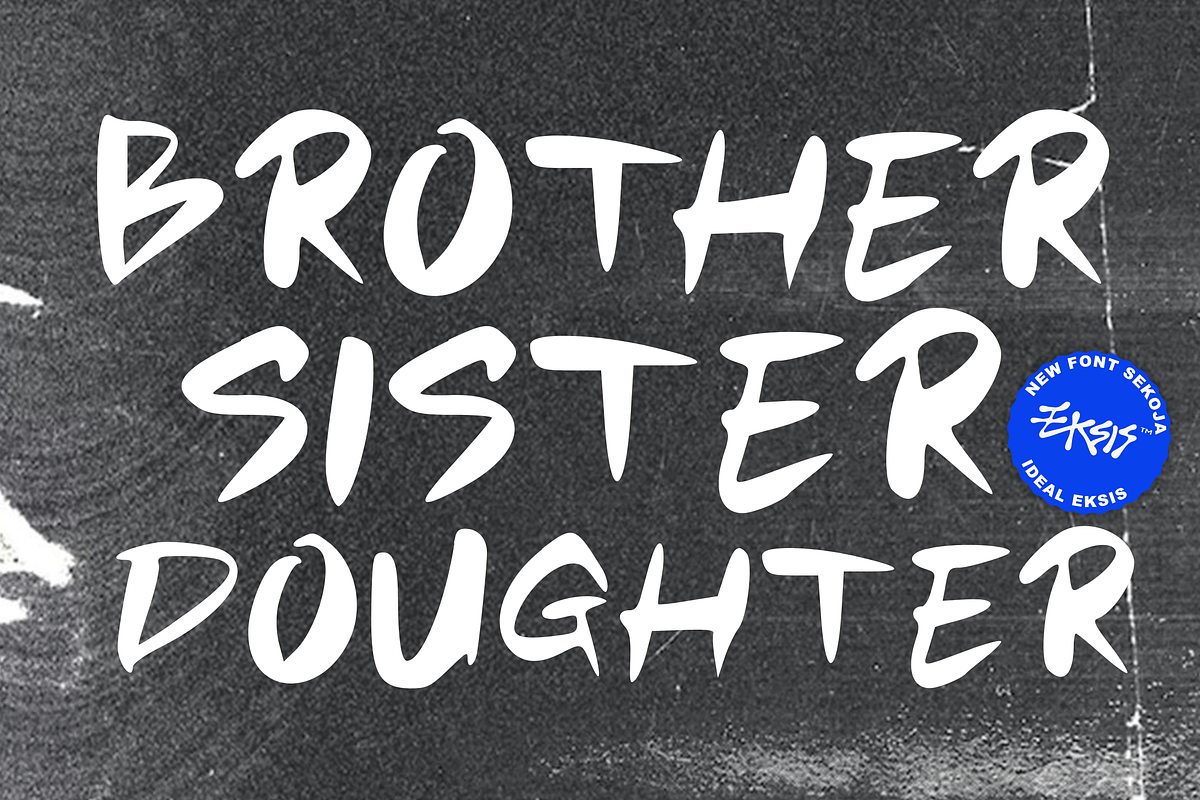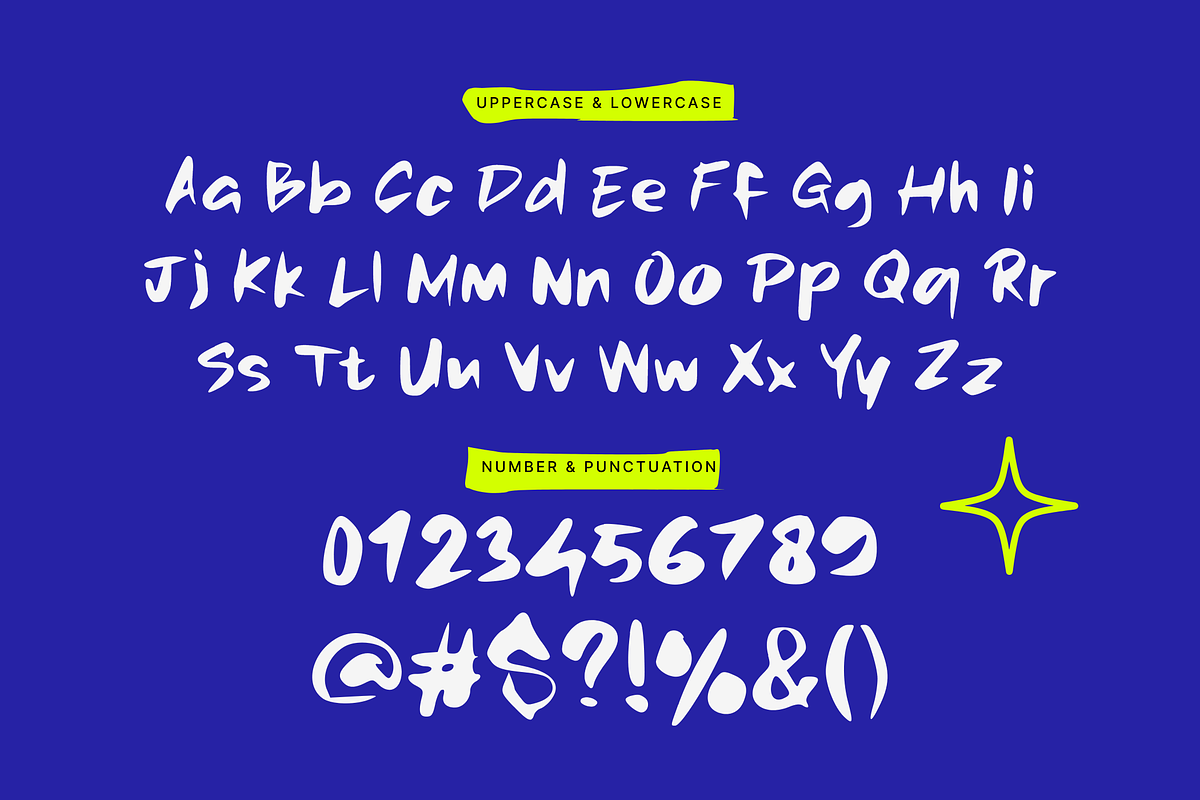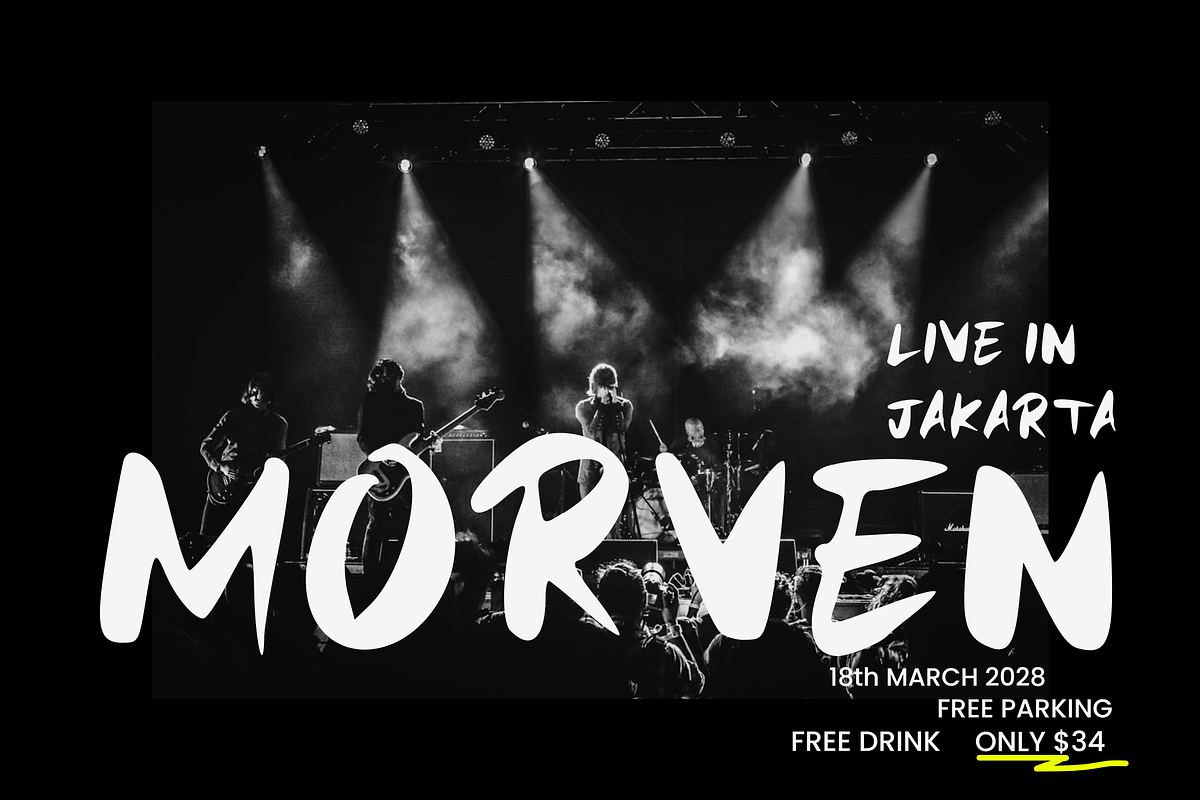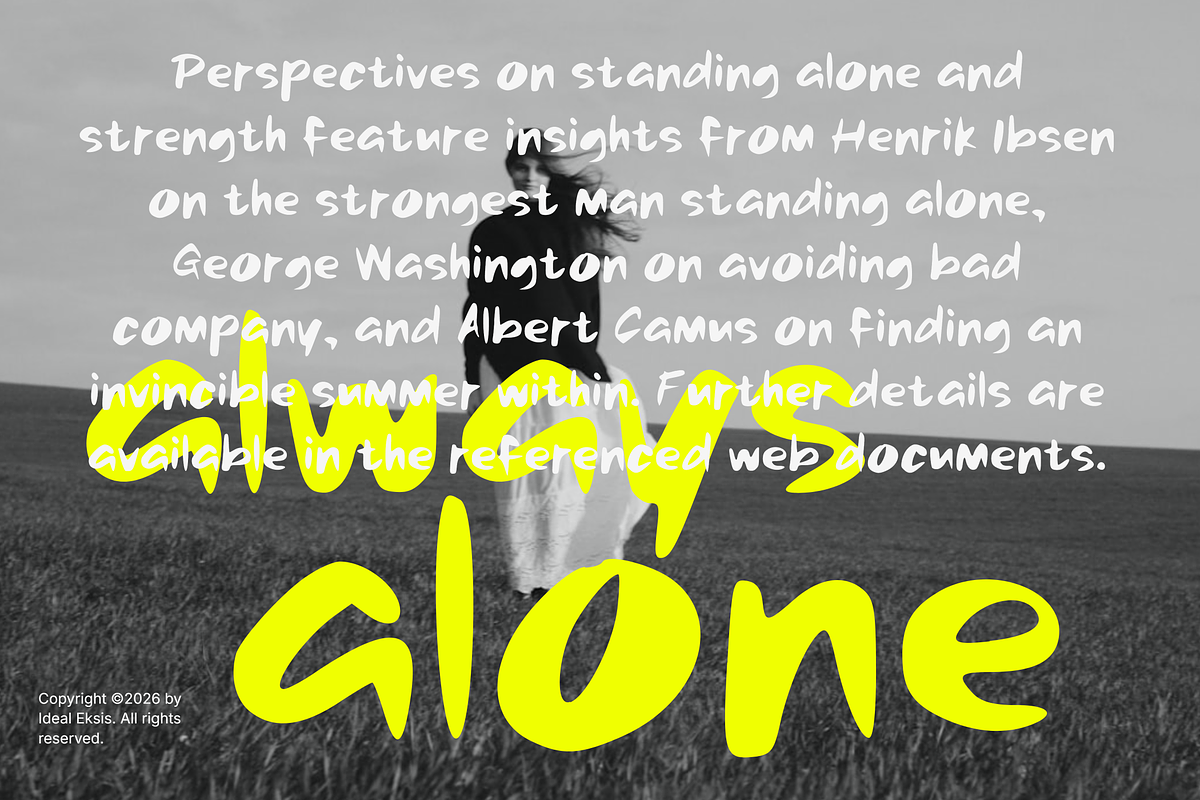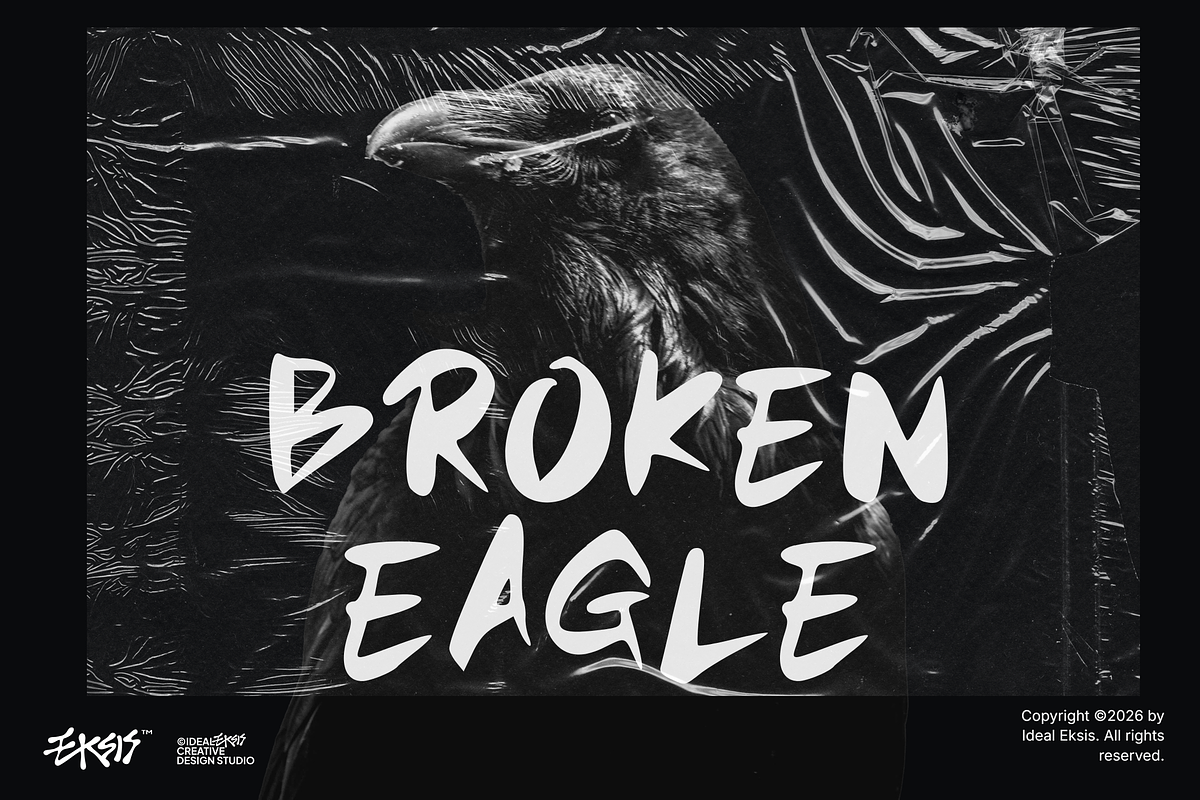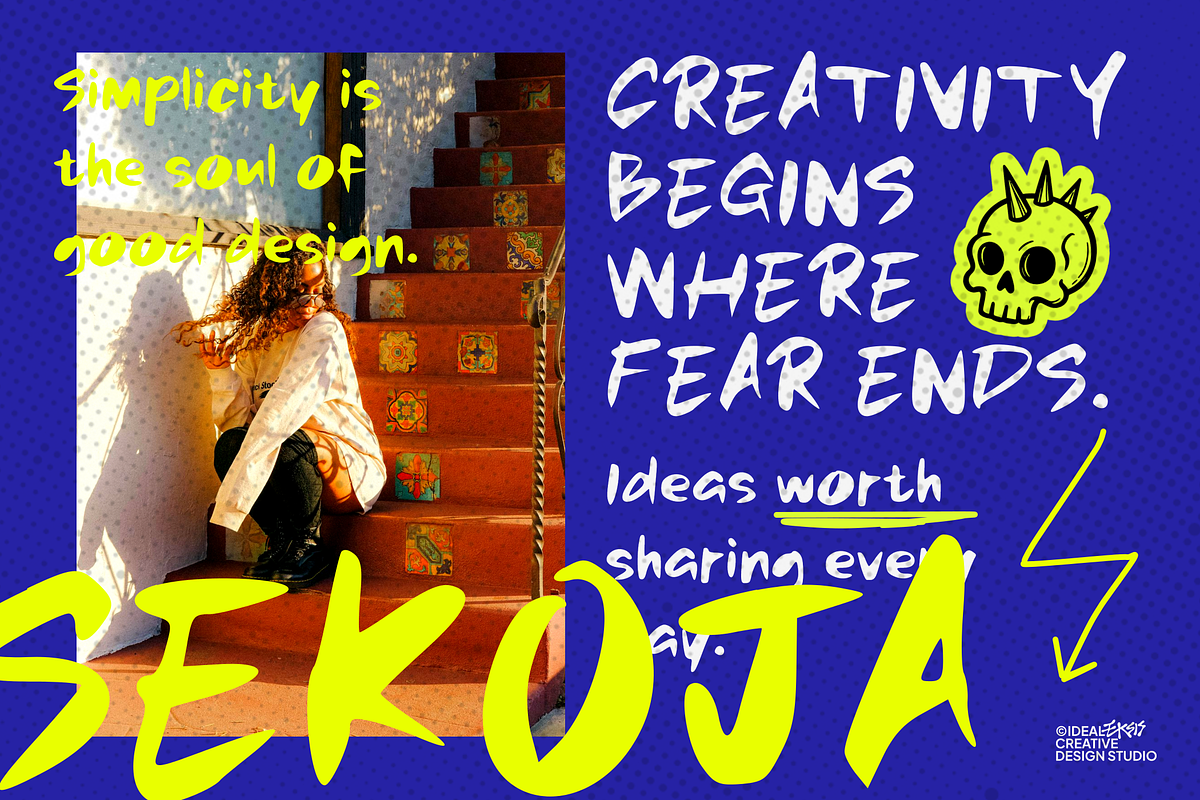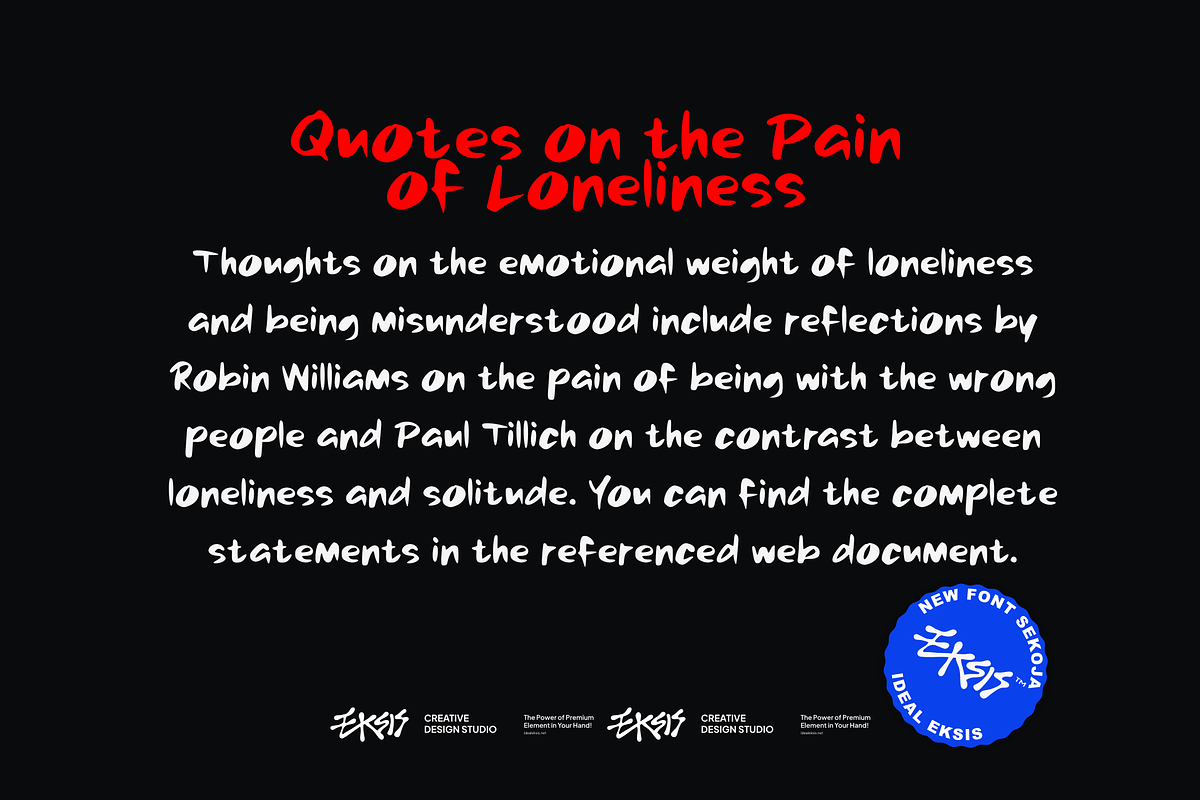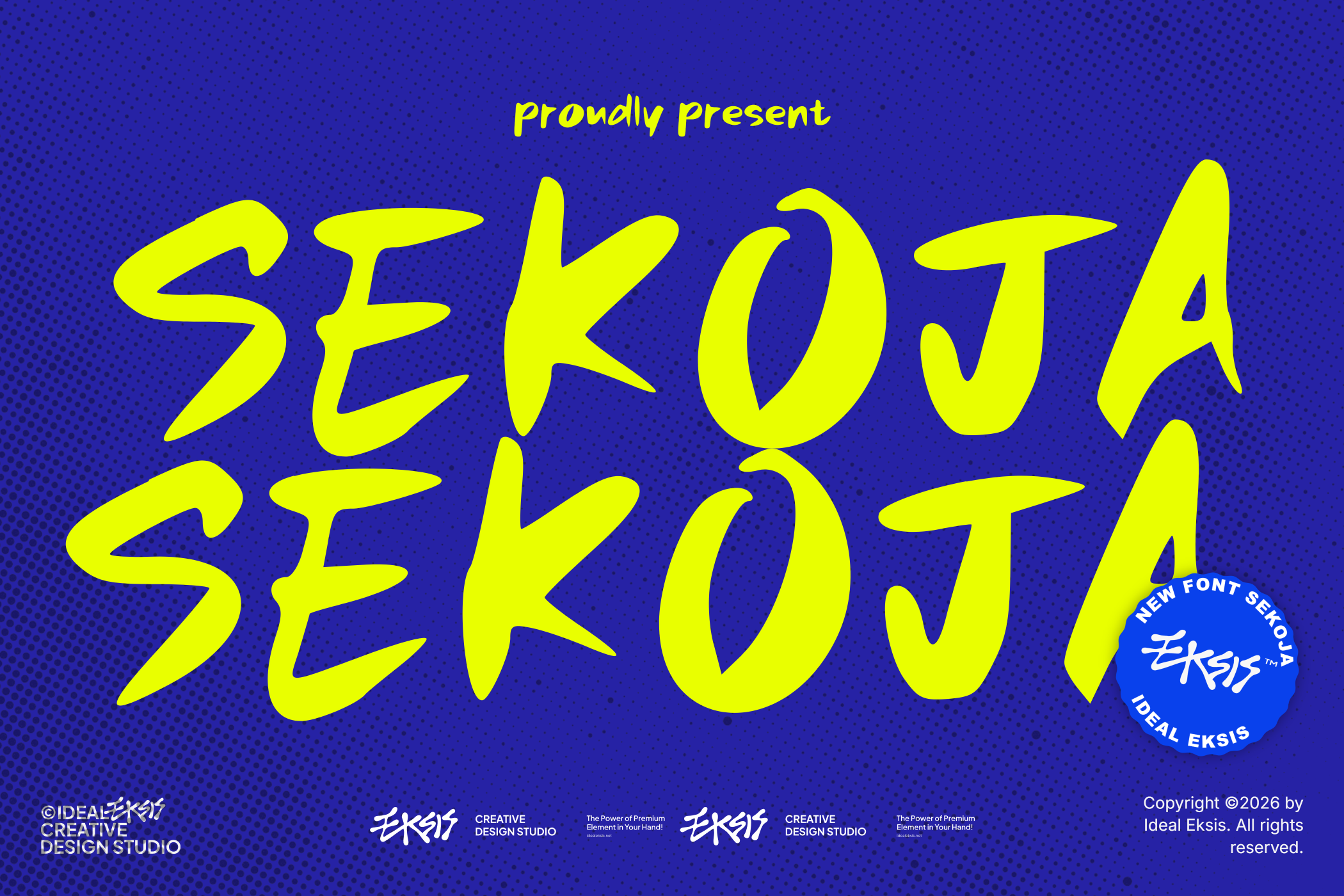
Sekoja Expressive Brush Font
This font features bold, dynamic, and expressive hand-drawn brush strokes. The letterforms exhibit high energy with organic, fluid lines and varying stroke weights that mimic a thick marker or paint brush. The terminals are sharp and gestural, giving the typeface a raw, street-art-inspired aesthetic. It is highly suitable for impactful headlines, poster designs, branding, and creative projects requiring a strong, personalized human touch.